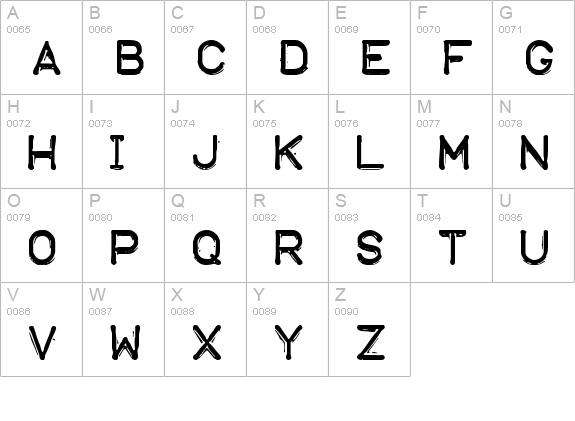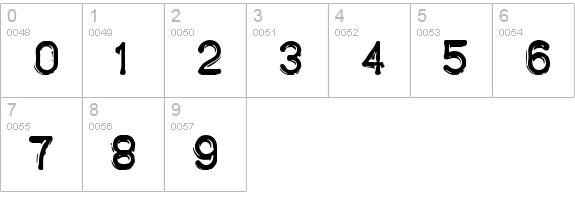
Embossing Tape 1 BRK Font Details
Embossing Tape 1 BRK font is a stylish and eye-catching typeface that adds a unique textured effect to your designs. With its bold and raised appearance, this font is perfect for creating standout headlines, logos, and other graphic elements. The intricate embossed detailing gives your text a tactile quality that is sure to make an impression. What's even better is that Embossing Tape 1 BRK font is available for free download at FontsMarket.com. You can easily access this versatile font and incorporate it into your projects without any cost. Don't miss out on the opportunity to enhance your designs with the striking look of Embossing Tape 1 BRK font. Download it today and elevate your creativity to new heights!